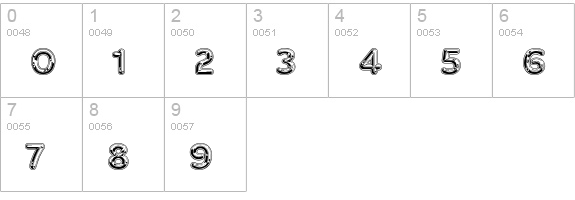
Chromium One Plain font is a modern and versatile typeface that strikes the perfect balance between elegance and simplicity. With its clean lines and smooth curves, this font exudes a sense of sophistication and professionalism. Whether used for headings, body text, or graphic design projects, Chromium One Plain font adds a touch of refinement to any composition. The best part? Chromium One Plain font is completely free to download at FontsMarket.com. This means that you can elevate your designs without any cost, making it a valuable addition to your font collection. Don't miss out on this opportunity to enhance your creative projects with the timeless appeal of Chromium One Plain font.